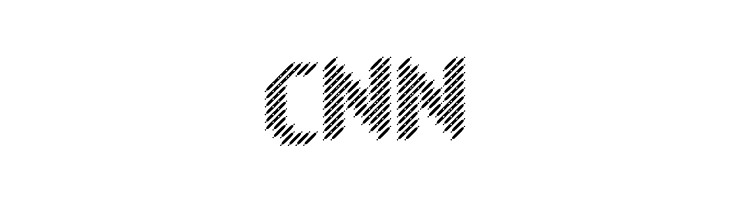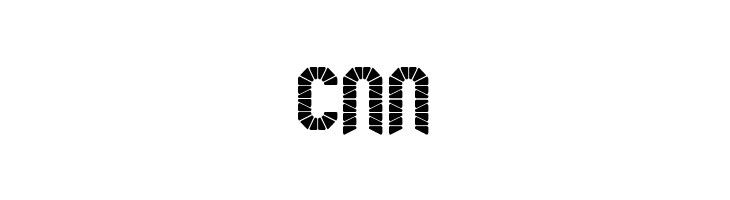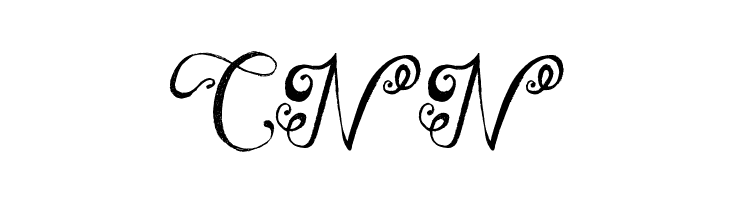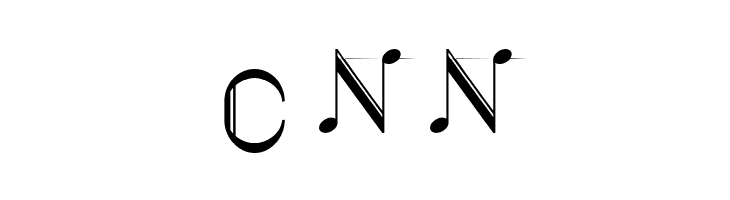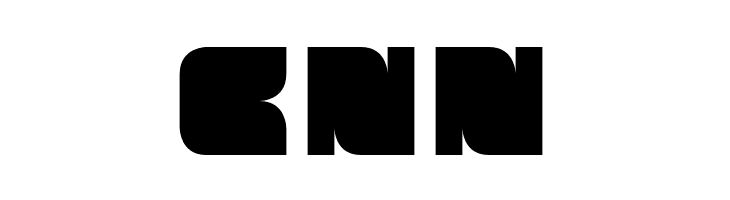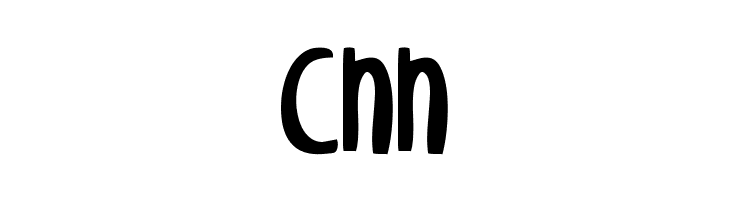
• MTF Under Your Skin
An ornate and decorative font with intricate swirls and flourishes.
• MTF Whimsy
A playful and whimsical font with exaggerated curves and a hand-drawn appearance.
• MTF Wildflower
A whimsical font with floral embellishments and delicate curves.
• MTF XOXOvo2.1
A playful, bold, hand-drawn font with irregular shapes and varying stroke widths.
• MuchaLike
• MuchBolder
• mummification Regular
• murro
• Murrx
A modern, textured font with diagonal line patterns for a dynamic look.
• Musiker